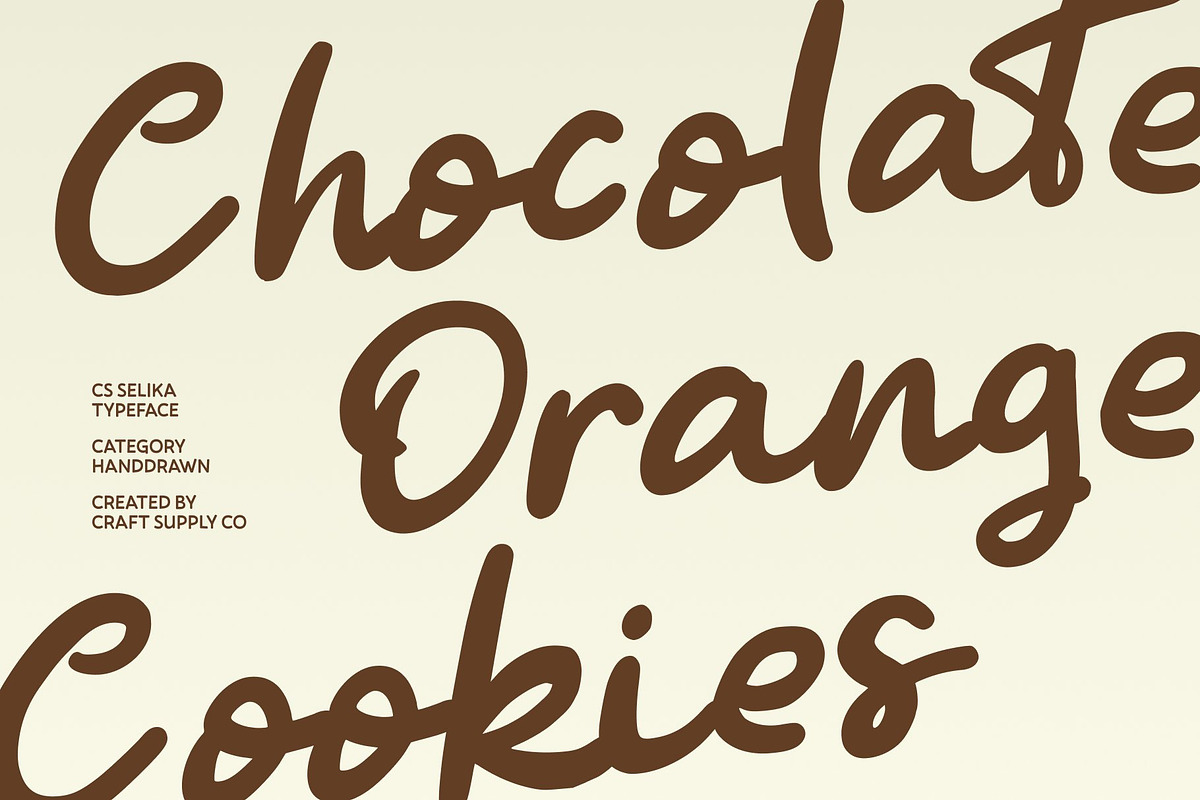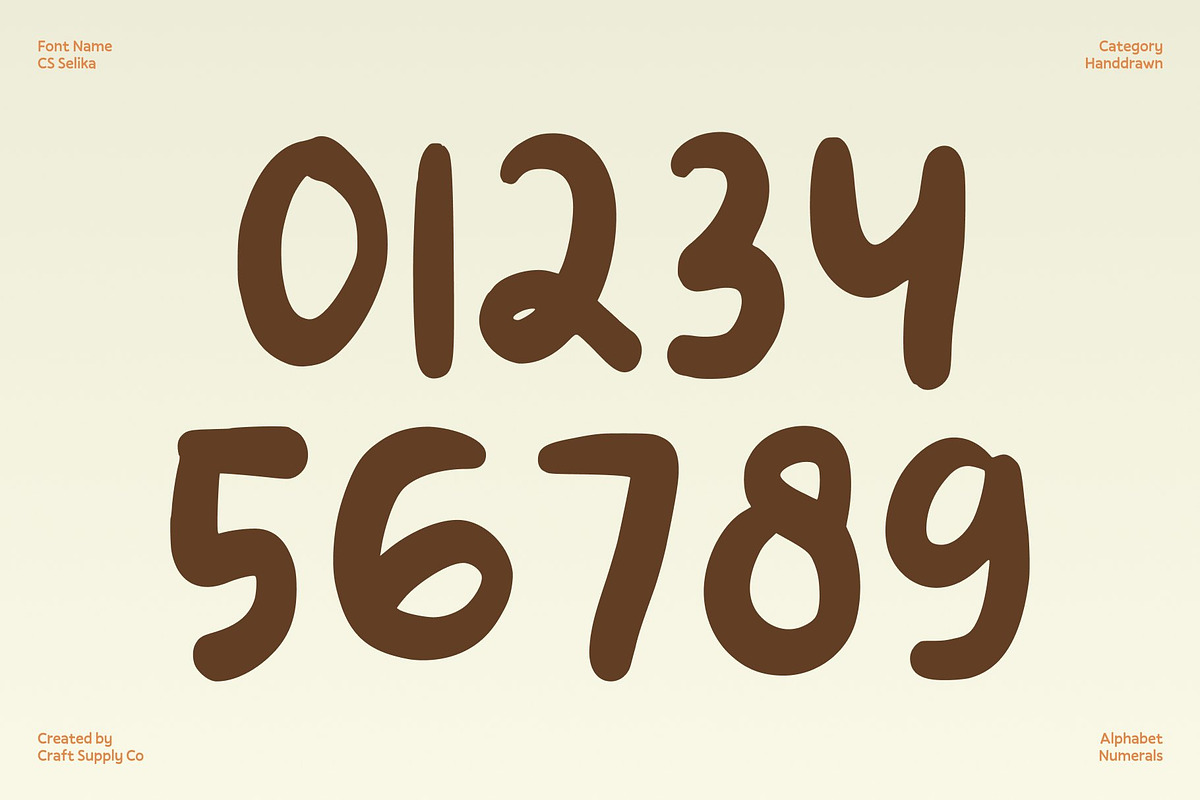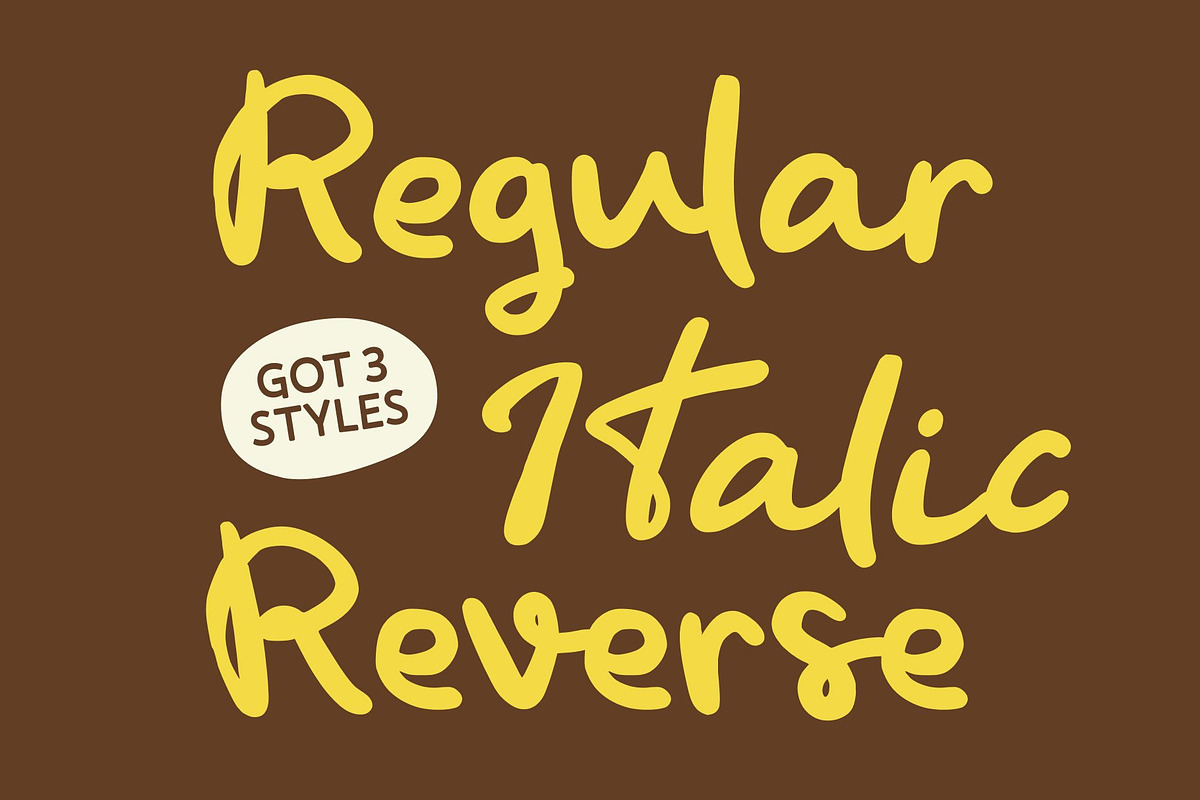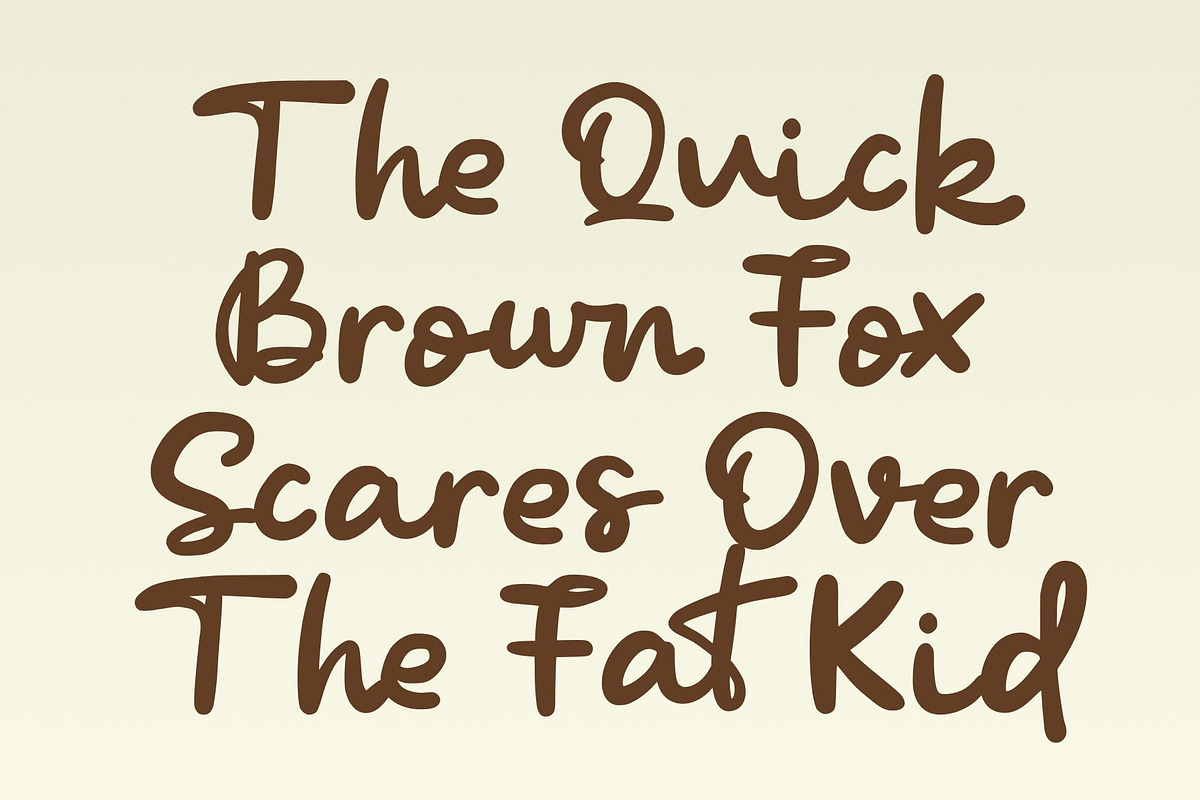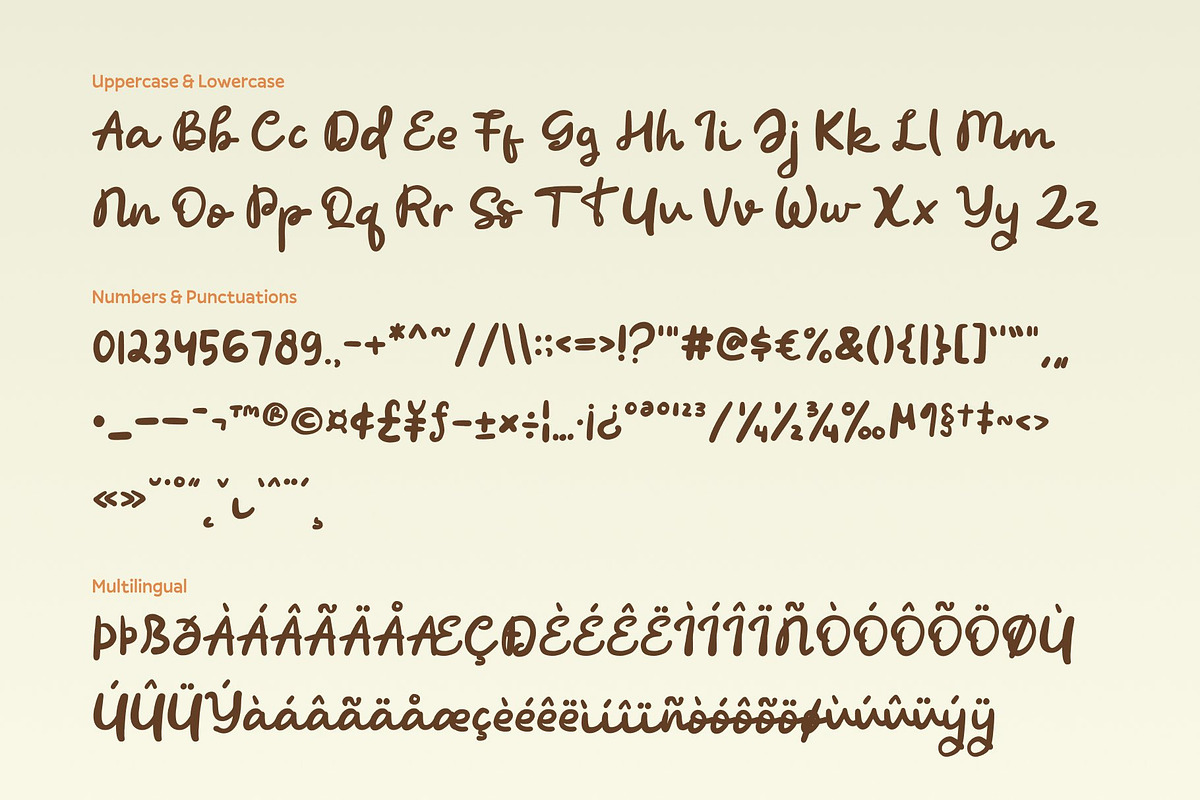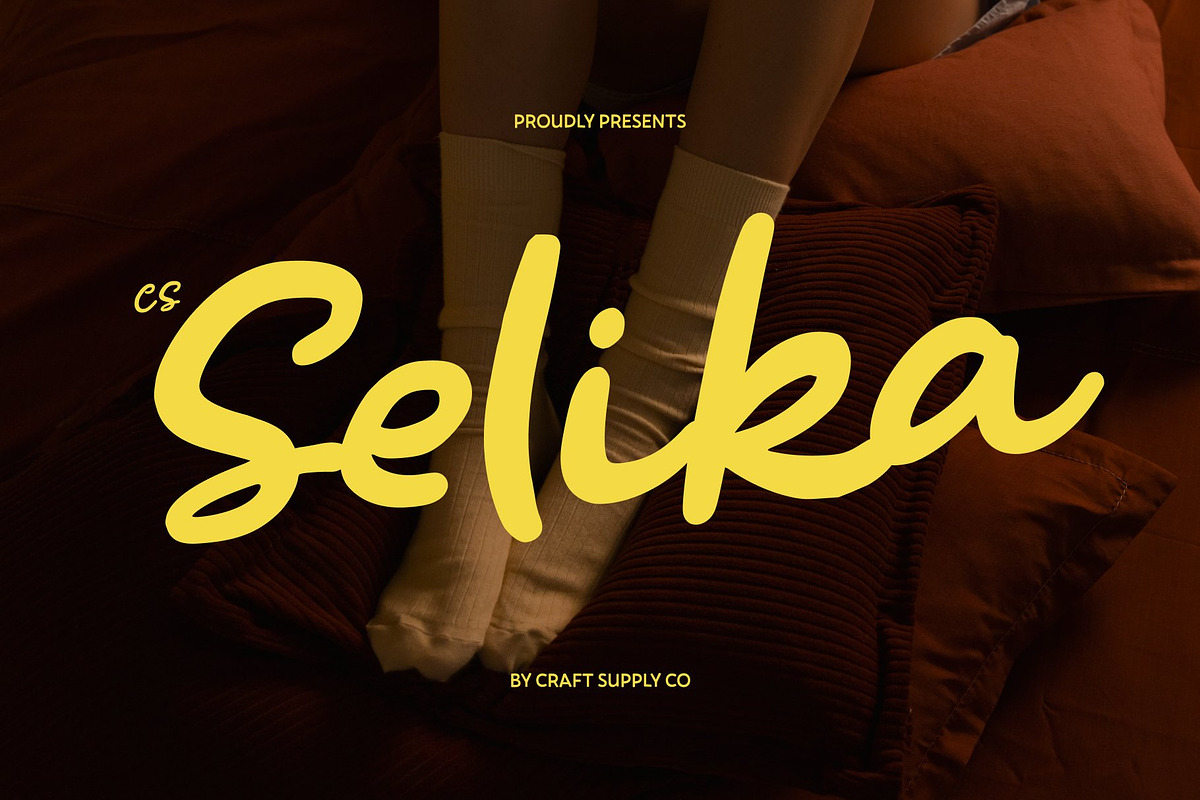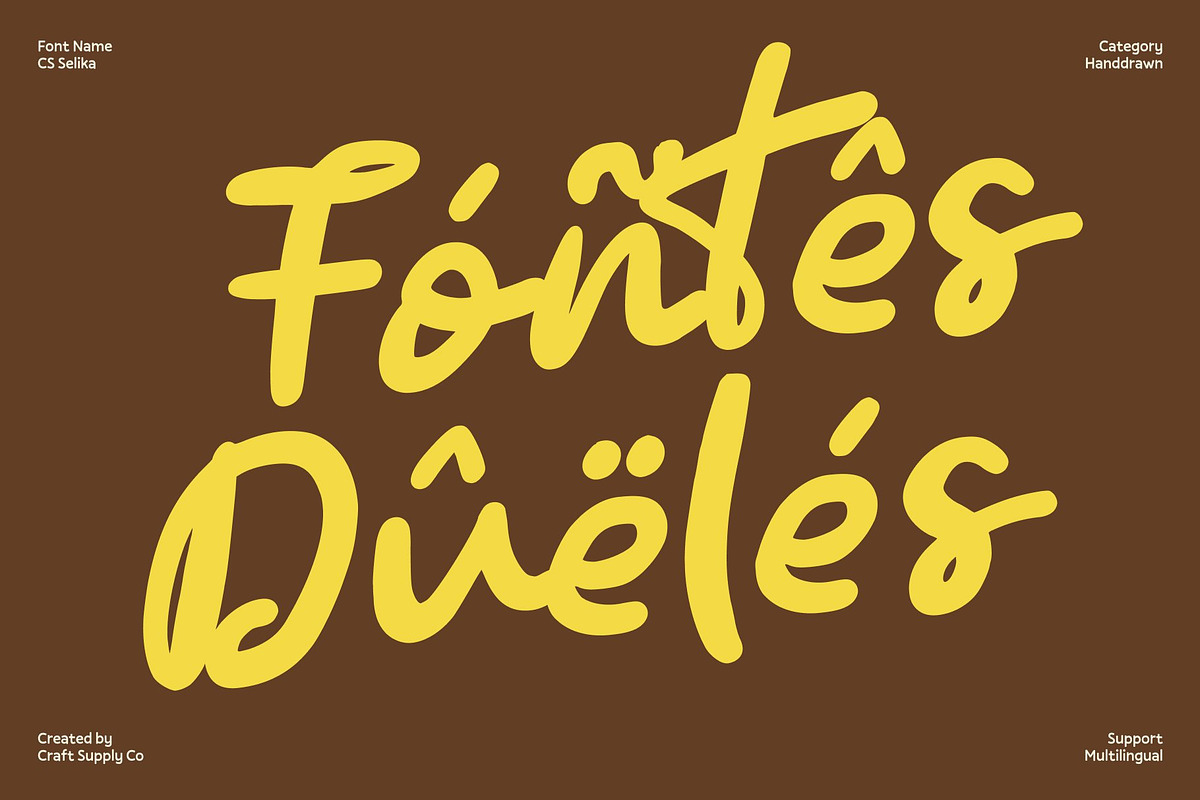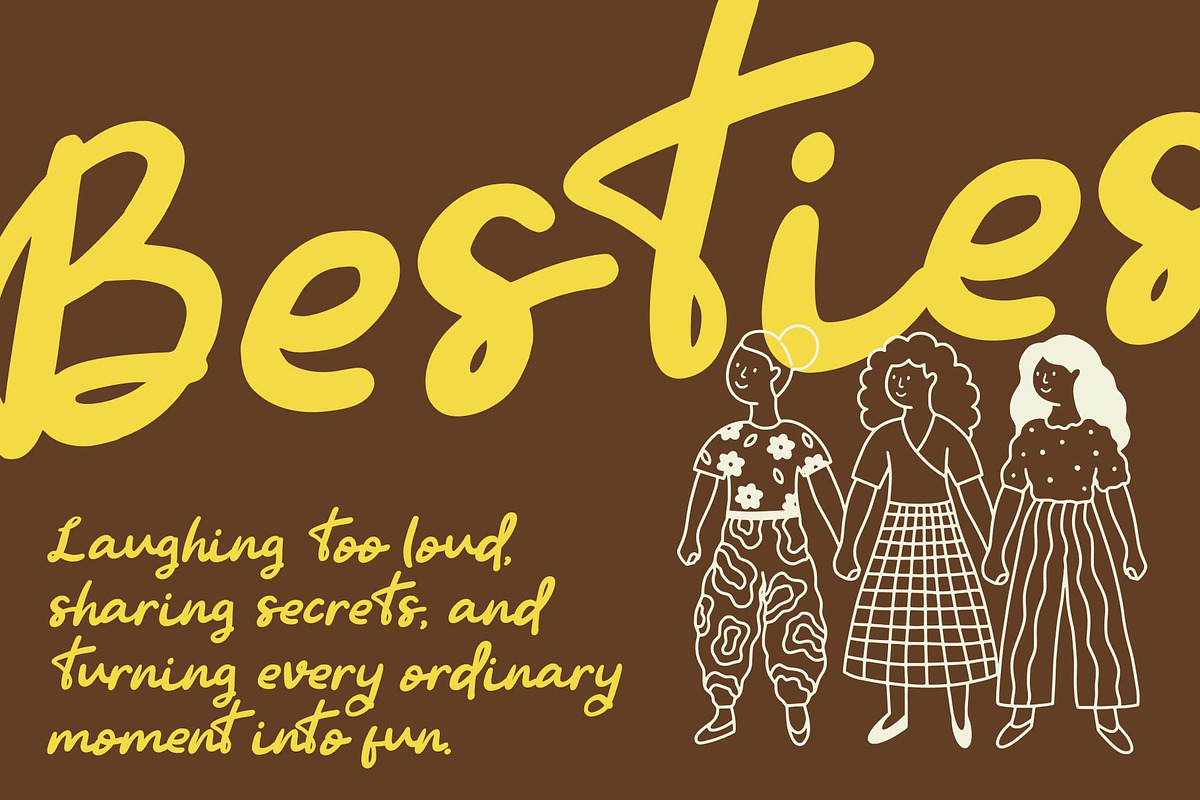
CS Selika – Handwritten Script
CS Selika – Handwritten Script Font with Delicate Creative Flourishes
Delicate Handwritten Style with Personal Charm This is a handwritten script font designed to capture a sense of delicacy, warmth, and individuality. Its natural strokes and flowing forms create an intimate, human touch that feels authentic and expressive. Each letter is carefully crafted to maintain balance and readability while preserving the spontaneous beauty of handwriting, resulting in a font that feels personal, graceful, and full of character.
Creative Flourishes that Feel Refined and Unique What makes this font truly special is its tasteful use of creative flourishes. These subtle decorative elements enhance the rhythm of the script without overpowering the letterforms. The flourishes add visual interest and elegance, allowing the font to stand out while remaining soft and approachable.
Elegant Mood with Fashion and Lifestyle Appeal This font carries an elegant yet relaxed aesthetic that aligns beautifully with fashion, lifestyle, and creative branding. Its smooth curves and gentle movement create a sophisticated tone that feels modern and inviting. Whether paired with minimal layouts or layered into expressive compositions, the font delivers a refined handwritten look with contemporary appeal.
Perfect for Branding, Invitations, and Fashion Graphics Designed for expressive and decorative applications, this font is ideal for branding, invitations, wedding materials, fashion graphics, packaging, and editorial accents. It brings charm and personality to logos, stationery, and promotional visuals, helping designs feel thoughtful and memorable.
- CS Selika Regular
- CS Selika Italic
- CS Selika Reverse Italic